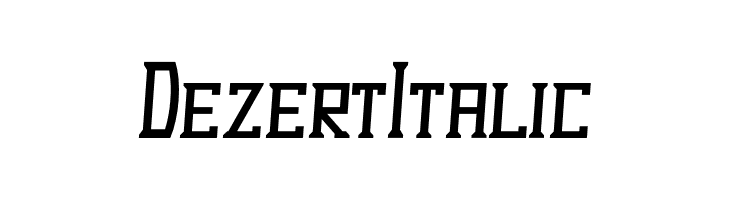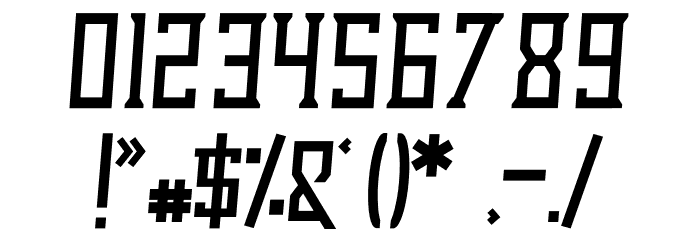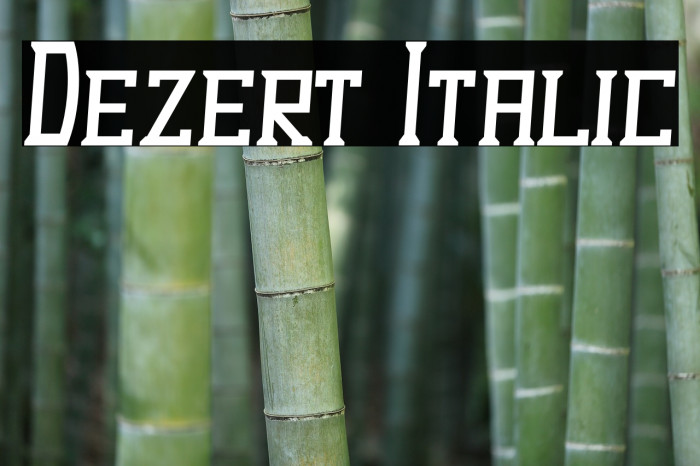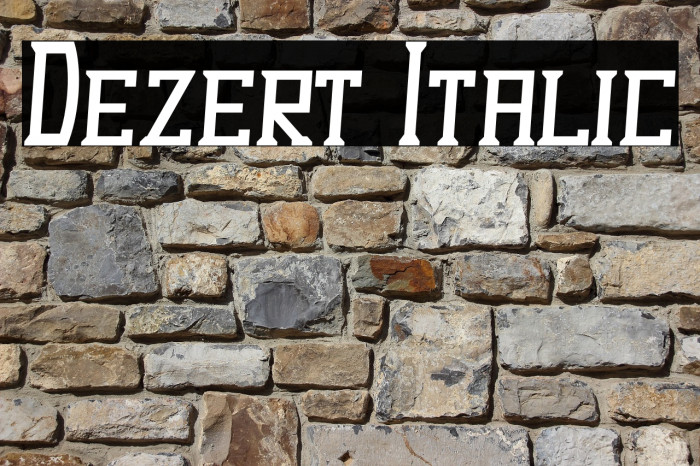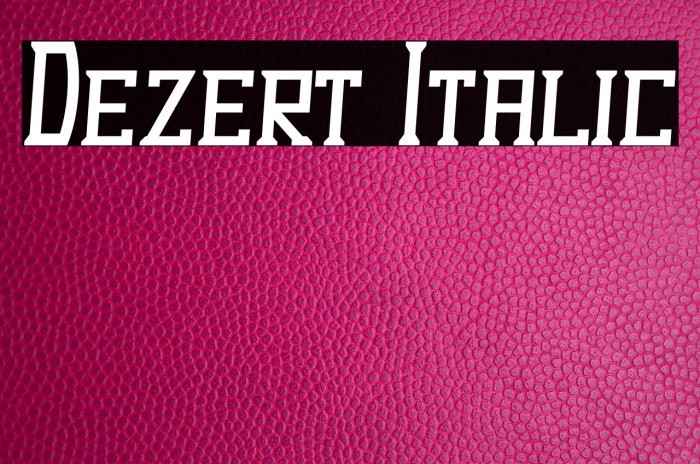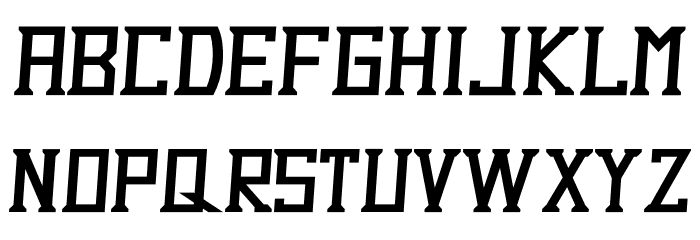
Dezert Italic Font
This font features a distinctive italic style with sharp, angular edges and a modern flair. The uppercase and lowercase letters maintain a consistent slant, giving the typeface a dynamic and forward-moving appearance. The numerals and special characters are designed to match the angular style, providing a cohesive look across all elements. The font's unique design makes it stand out, with each character having a slightly condensed form, enhancing its bold and assertive presence.
A modern, angular italic font with a bold and dynamic style.
• Proposed Projects: Ideal for branding, sports team logos, dynamic posters, and modern web design projects.